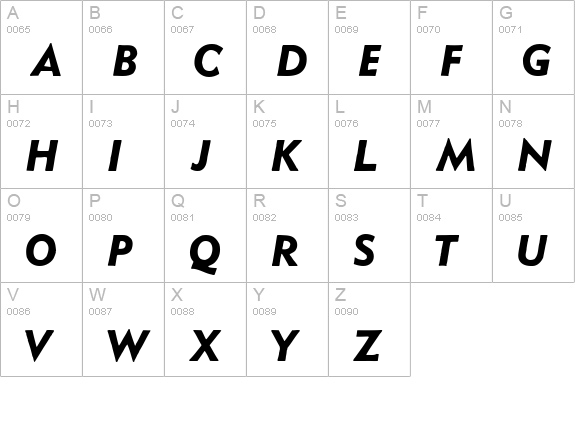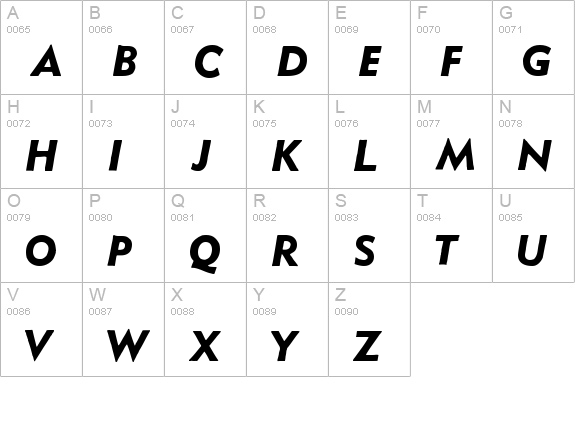
Metro Black Oblique HPLHS is a maximum-weight, dramatic, italic variant in the Metro typeface family \xE2\x80\x94 well suited to maximum-impact headlines, posters, and packaging.
Introducing the exquisite Metro Black Oblique HPLHS font, a sleek and modern typeface that exudes elegance and sophistication. With its bold and slanted design, this font is perfect for creating eye-catching headlines and striking designs that demand attention. What sets Metro Black Oblique HPLHS font apart is its seamless blend of classic and contemporary elements, making it a versatile choice for a wide range of projects. Whether you're designing a poster, logo, or website, this font will add a touch of class and style to your work. And the best part? Metro Black Oblique HPLHS font is available for free download at FontsMarket.com. So go ahead and elevate your designs with this stunning font today!